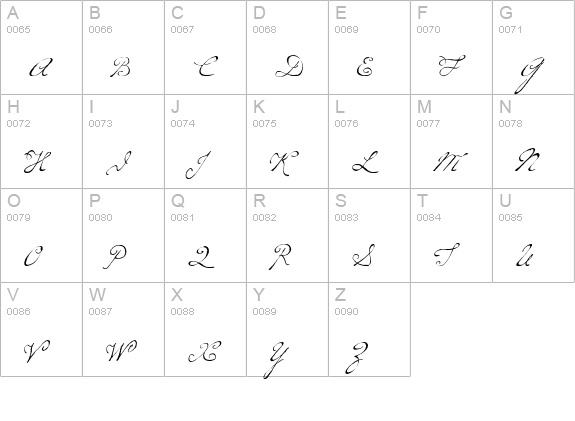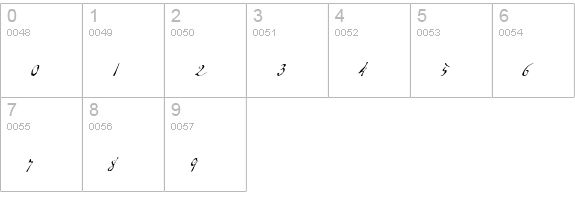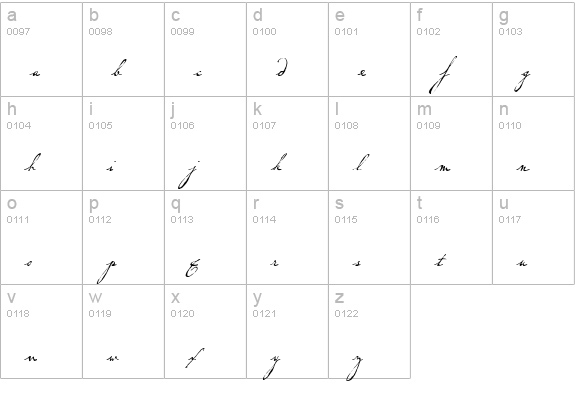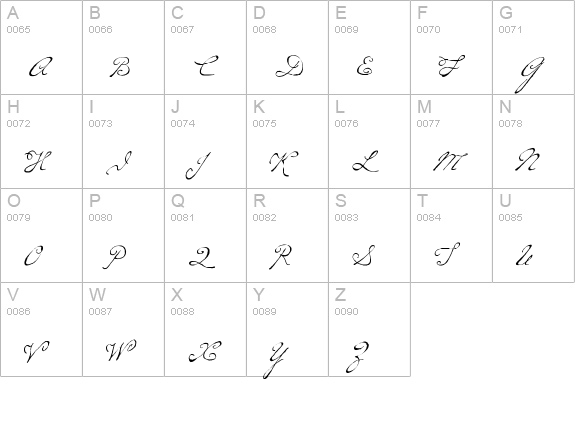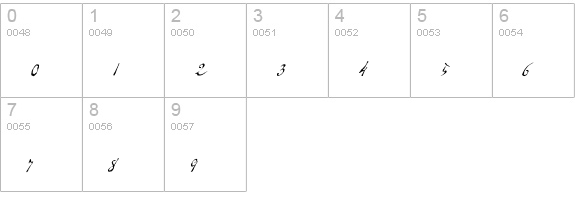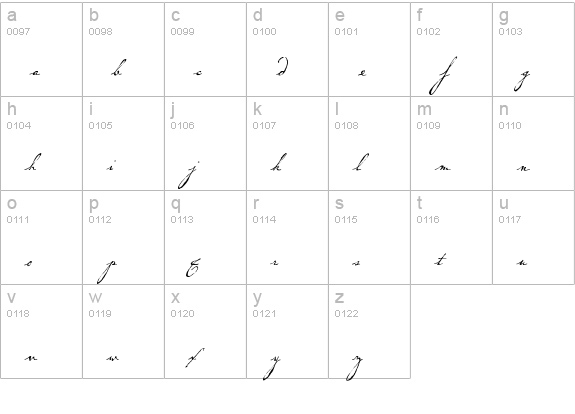
P22DearestScript Font Details
P22DearestScript font is a charming and elegant typeface that exudes warmth and sophistication. With its delicate and flowing curves, this script font brings a touch of romance to any project. Perfect for wedding invitations, love letters, and heartfelt messages, P22DearestScript adds a personal and intimate touch to your designs. This beautiful font is freely available to download at FontsMarket.com, making it easily accessible for all your creative endeavors. Whether you're creating greeting cards, posters, or social media graphics, P22DearestScript is sure to elevate your designs with its timeless beauty and grace. Add a touch of love and sweetness to your projects with this exquisite script font.